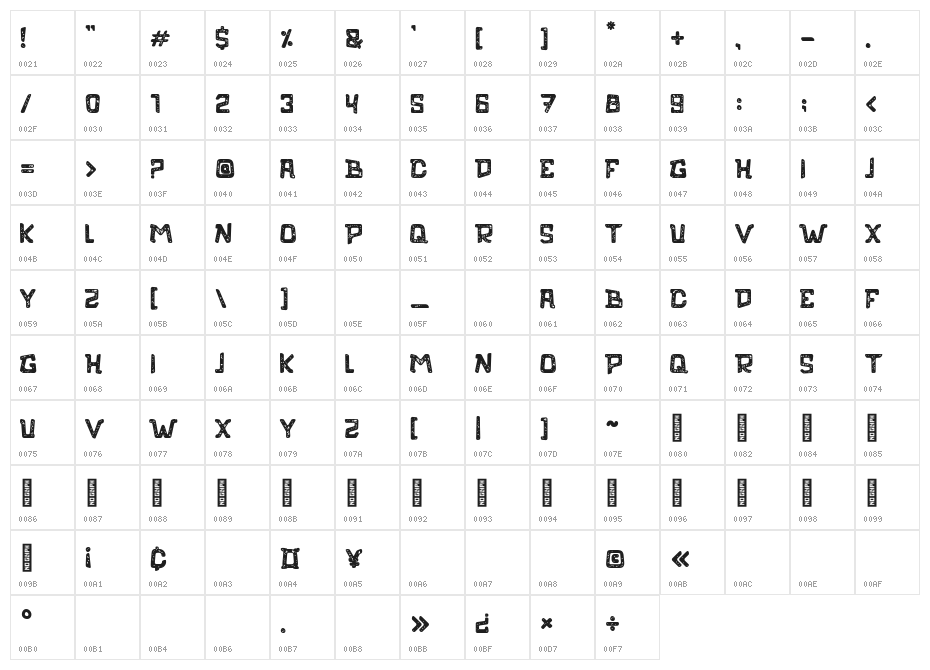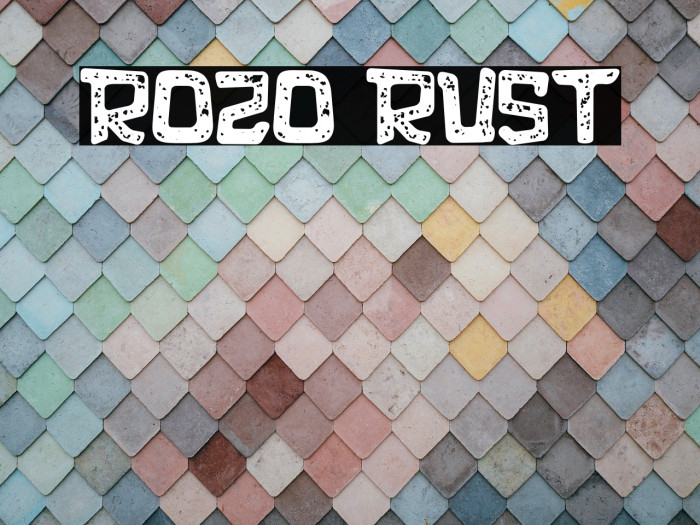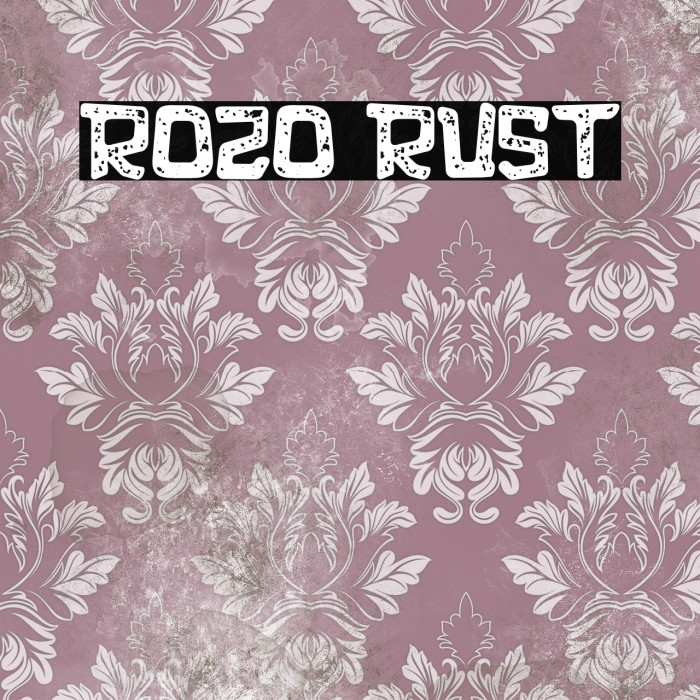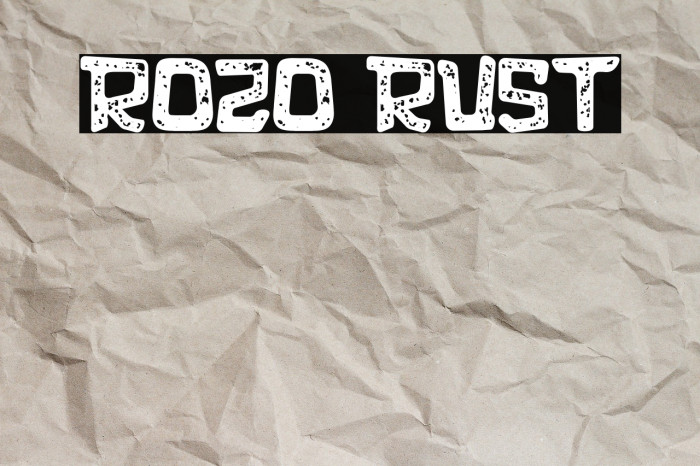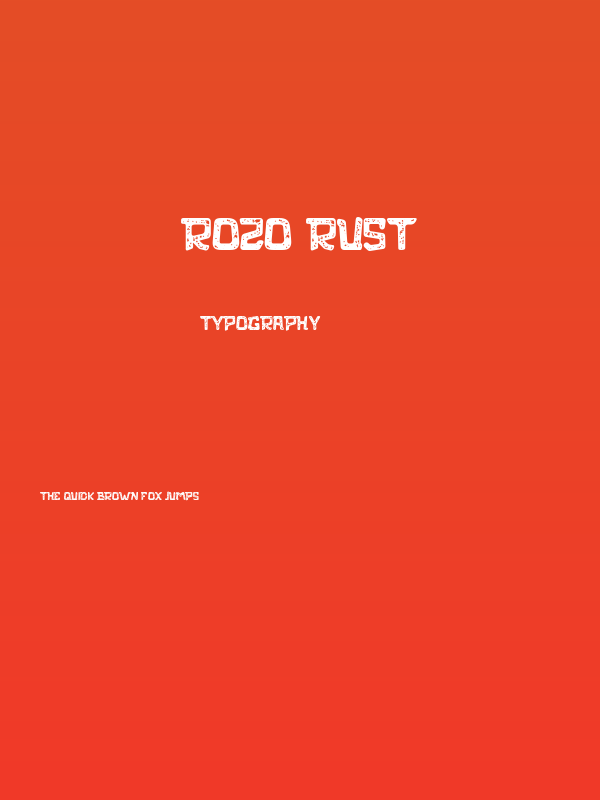
rozo Rust Font
rozo Rust Description
This font features a rugged, distressed appearance with a bold and impactful style. Each character is designed with a textured, worn-out look, giving it a vintage and industrial feel. The letters are bold and blocky, with a consistent thickness throughout, creating a strong visual presence. The distressed texture adds a unique character to the font, making it ideal for projects that require a gritty, raw aesthetic. The overall style is both eye-catching and versatile, suitable for a variety of creative applications.
| Overall Style | Vintage |
| Proposed Projects | Ideal for posters, album covers, branding for edgy or rustic products, and any design needing a bold, textured look. |